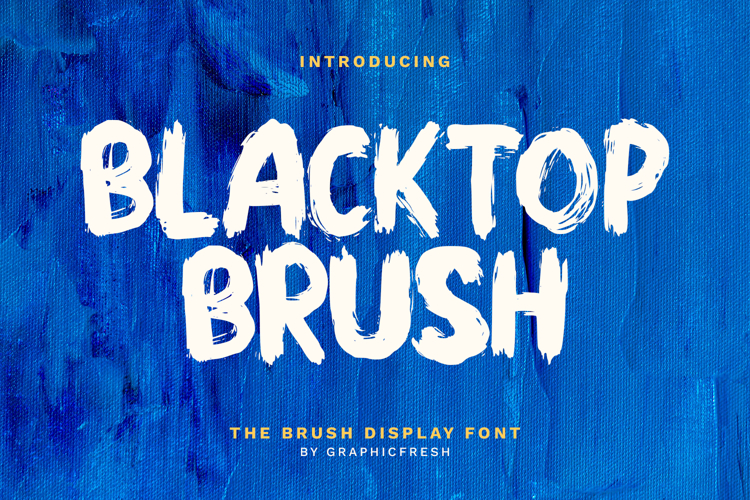
Blacktop - The Display Brush Font
Blacktop is a bold display brush font crafted with strong strokes and confident character. Inspired by urban textures and expressive hand-painted lettering, this font delivers powerful visual impact with a modern edge. Its thick brush forms and dynamic flow make it perfect for headlines, branding, posters, social media graphics, and creative projects that demand attention. Blacktop combines raw texture with solid readability, creating a striking and versatile display style.